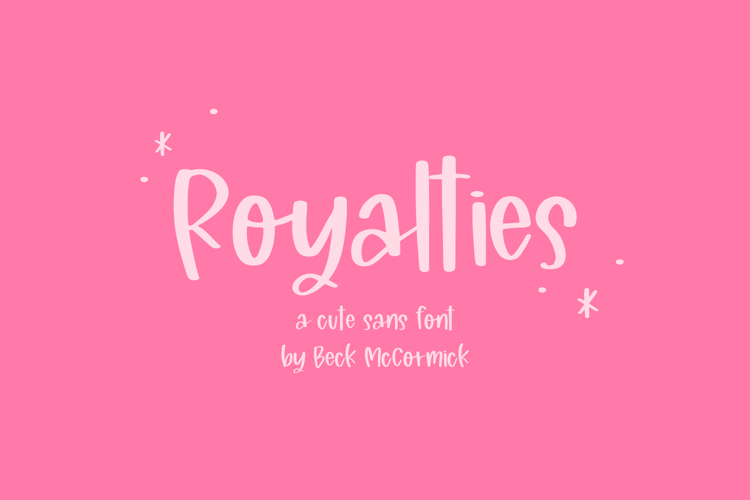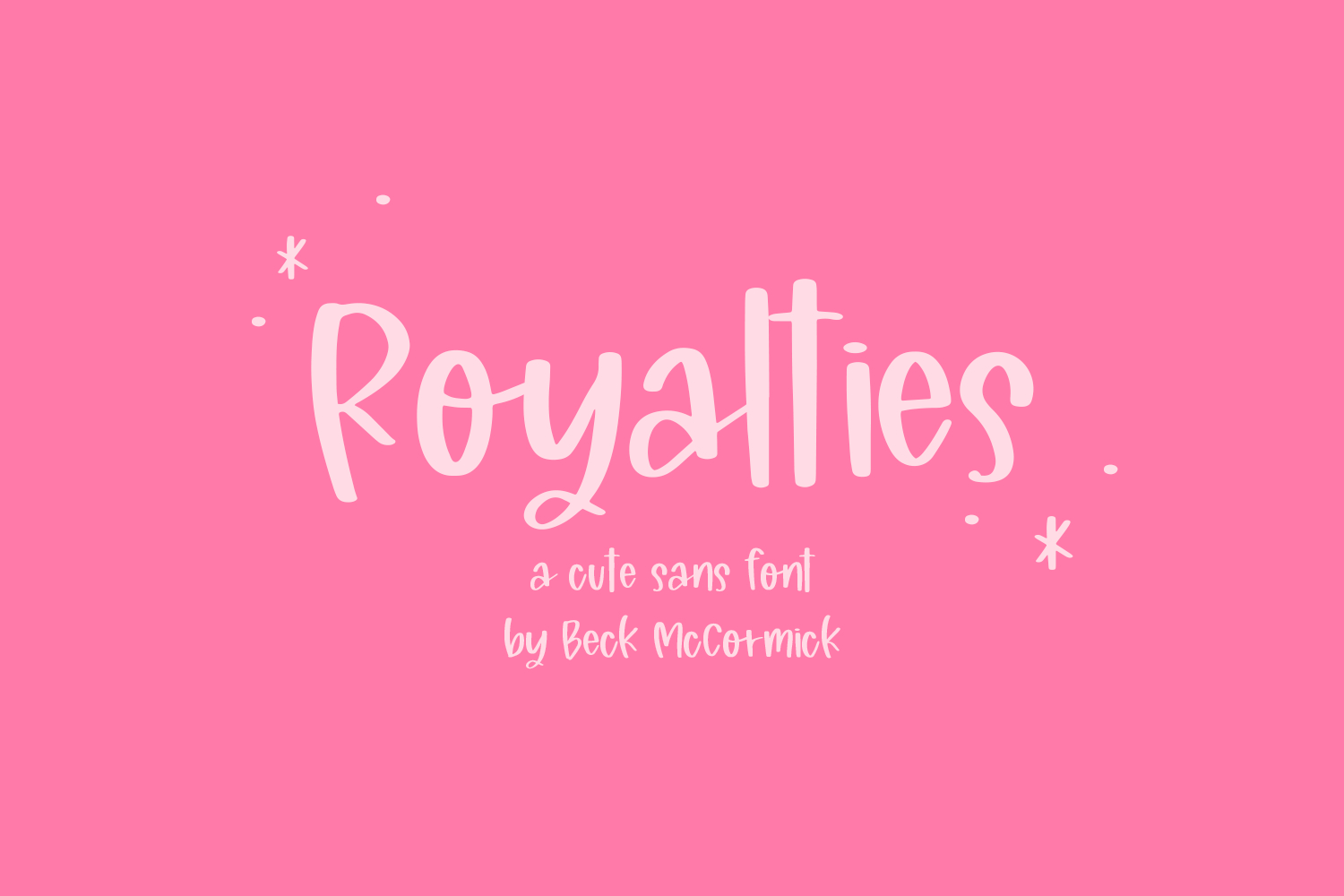
Royalties Sans
Royalties is a cute handwritten sans font. Royalties has a smooth edge, making it a great fit for vinyl cutting projects. It’s also a great fit for adorable branding & logo design, marketing materials, & more.